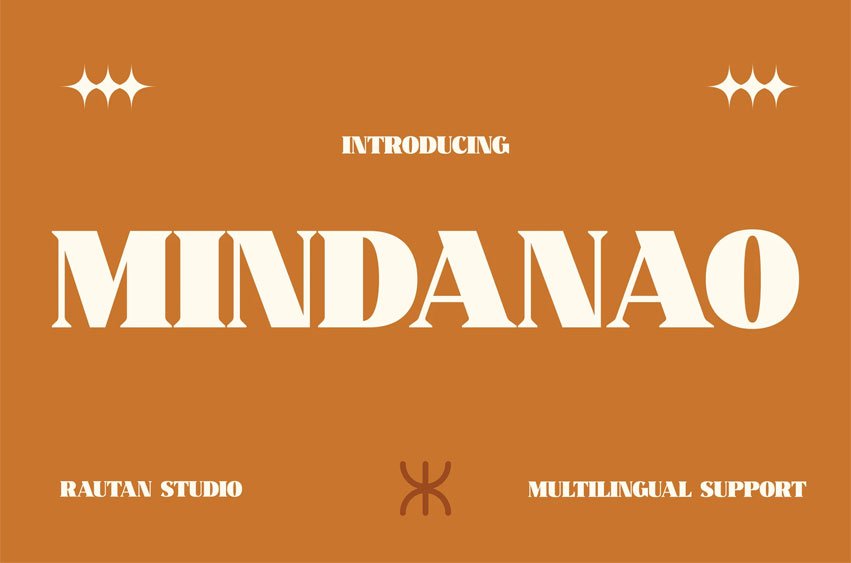
Mindanao Font is a bold vintage slab display typeface designed for strong branding and retro editorial headlines, built with sturdy slab terminals, confident proportions, and solid geometric structure that command visual attention.
The letterforms carry a bold, heritage-inspired, and retro-industrial vibe, making them perfect for vintage branding, fashion editorials, poster design, product packaging, and Instagram campaigns. With support for 67 languages, Mindanao is also designed for international branding projects that require consistent visual identity across global audiences.
Ideal for projects such as:
- Vintage branding and logos
- Fashion campaigns and editorial titles
- Poster and merchandise design
- Packaging labels and product branding
- Social media graphics and promotional banners
Because the characters feel solid and balanced, Mindanao helps create attention-grabbing headlines and memorable brand identities. Whether used for a fashion label, coffee packaging, vintage store identity, or promotional poster, the typeface gives designs a bold personality with nostalgic charm.
Key Features : Bold Slab Structure
- Heavy slab terminals and thick strokes create a strong visual presence for impactful headlines.
Retro Heritage Personality
- Inspired by vintage signage and classic editorial typography, giving designs nostalgic charm.
Balanced Letter Proportions
- Carefully spaced characters ensure readability while maintaining bold display appeal.
Global Language Support
- Supports 67 languages, enabling consistent branding across international audiences.
Versatile Display Use
- Works effectively for branding, posters, packaging, merchandise graphics, and editorial titles.
Attention-Grabbing Headlines
- Distinct shapes help designers create strong titles that stand out across print and digital media.